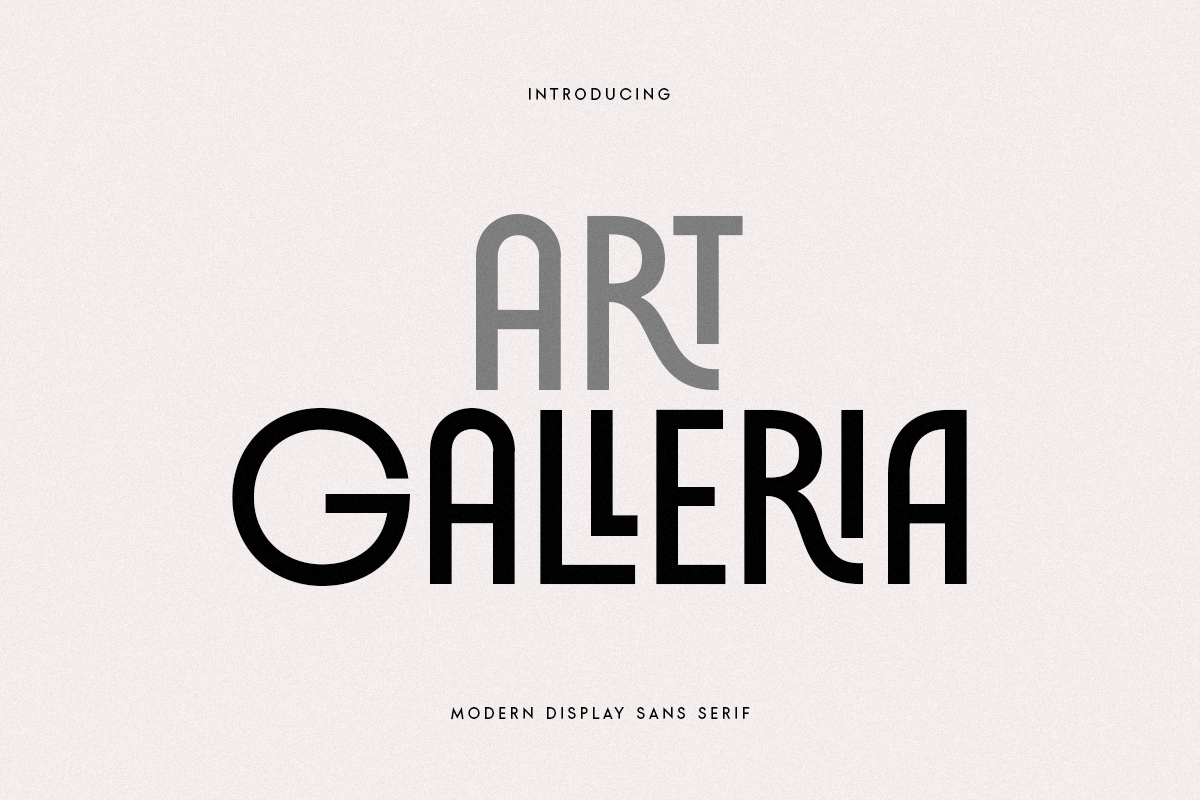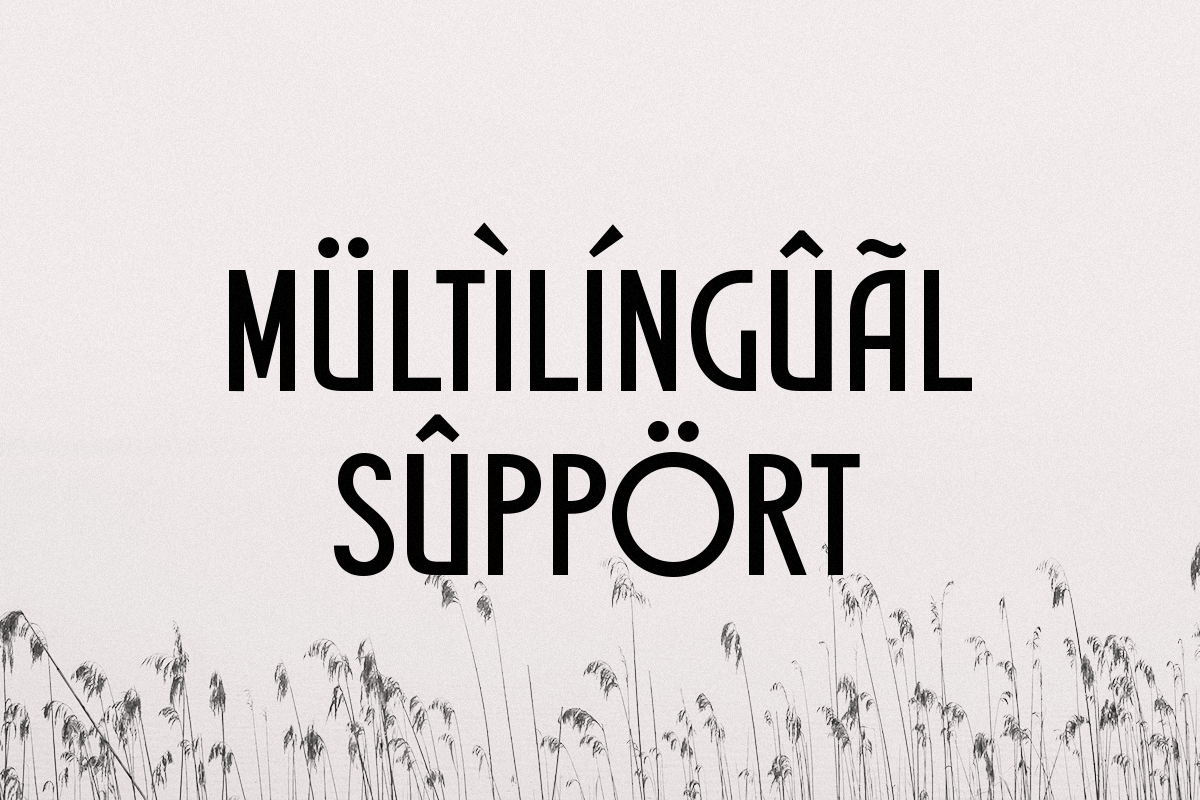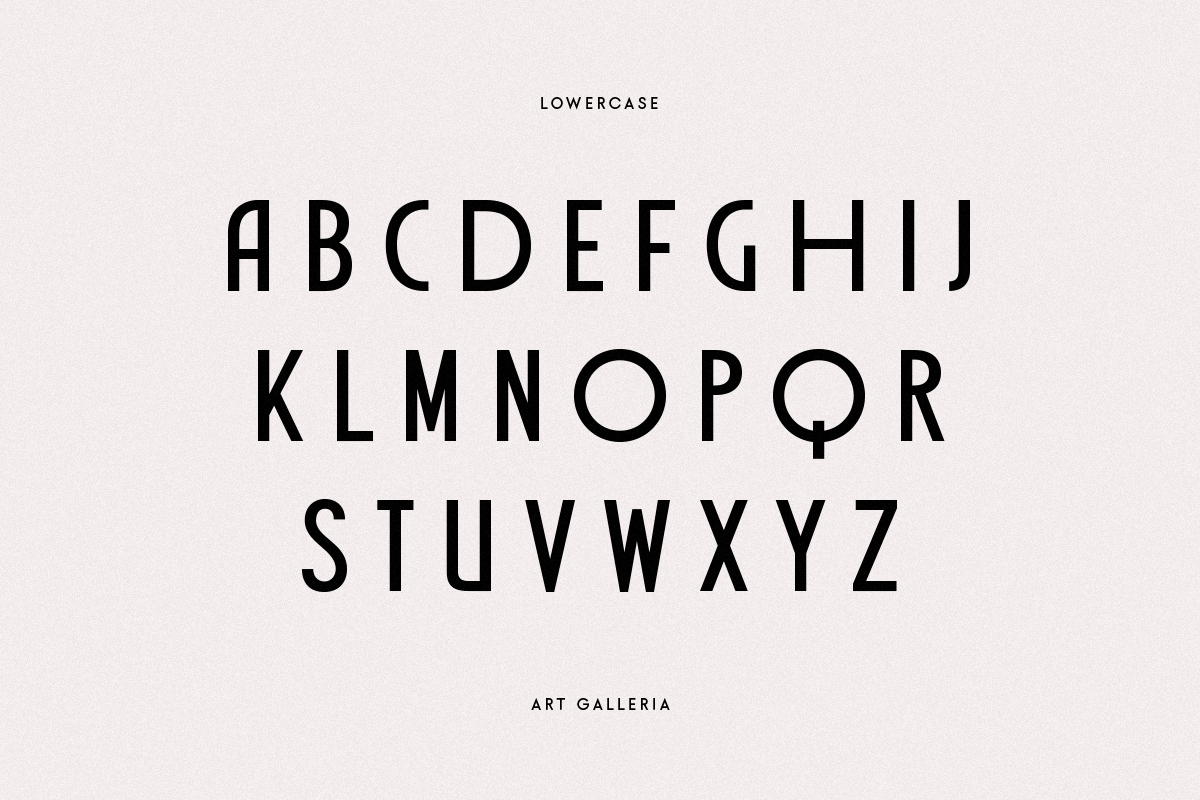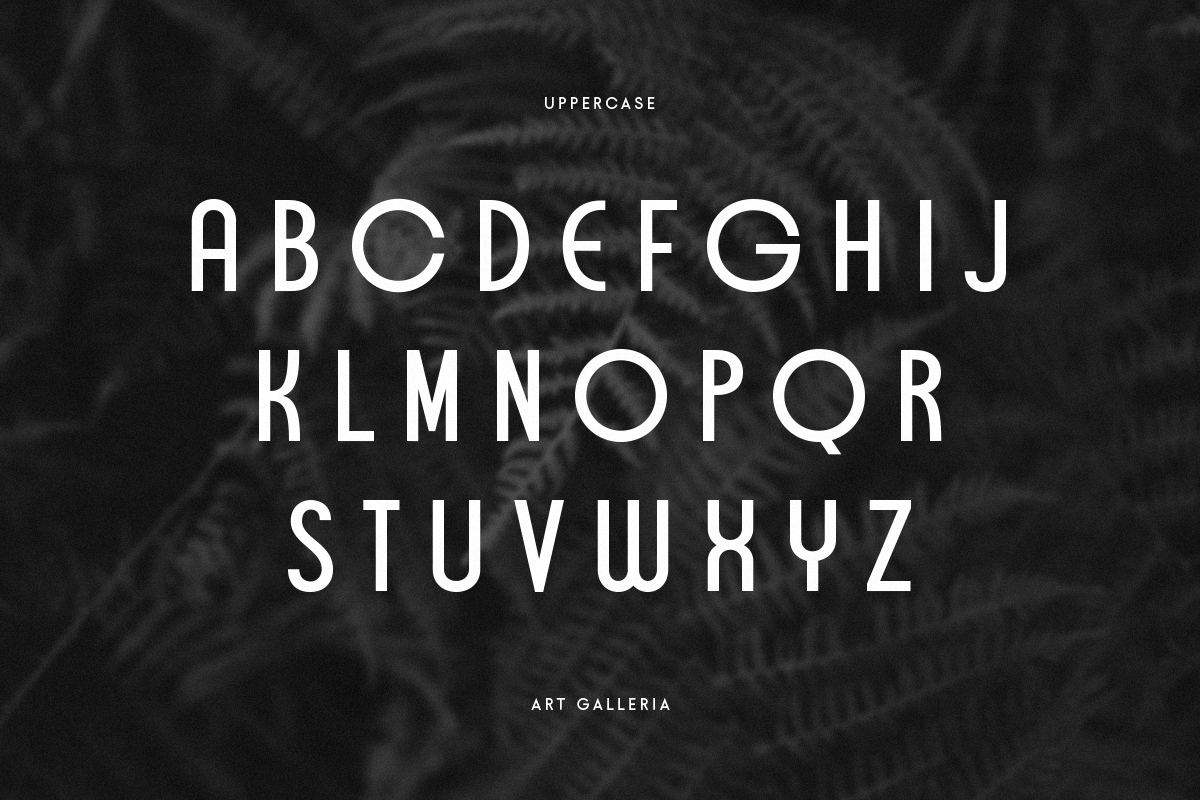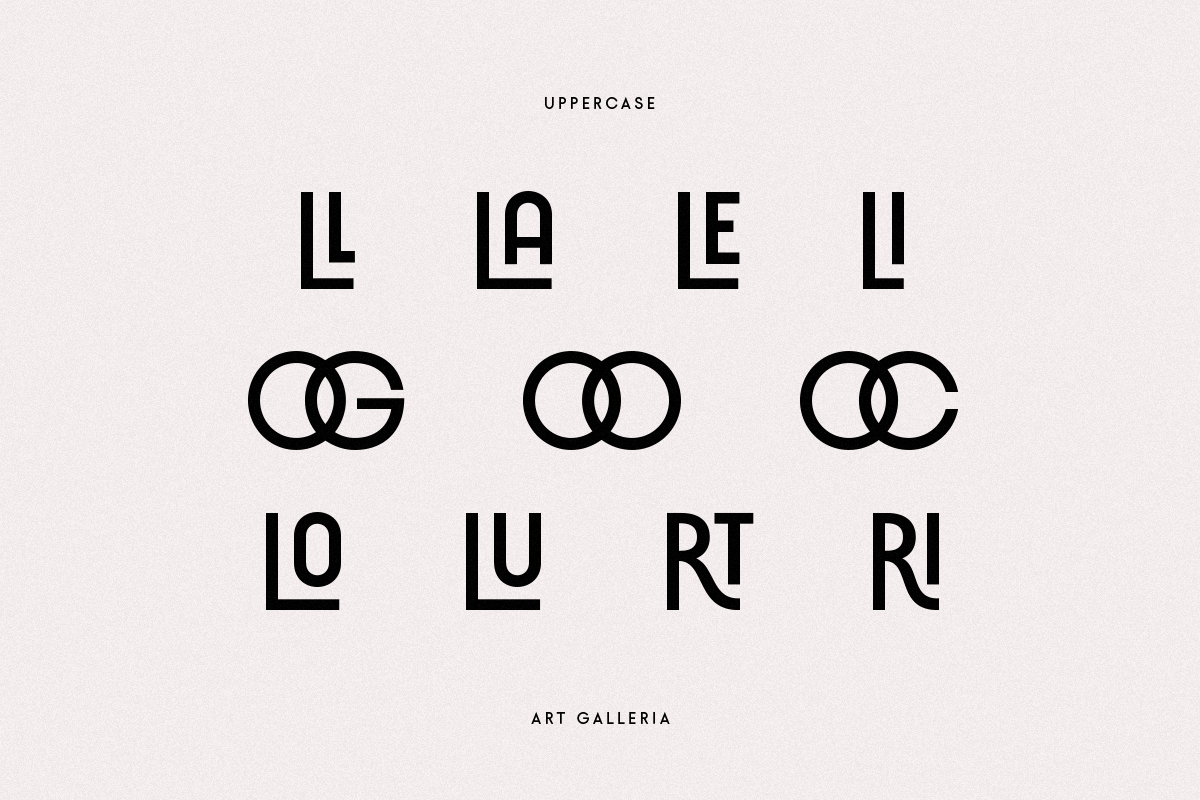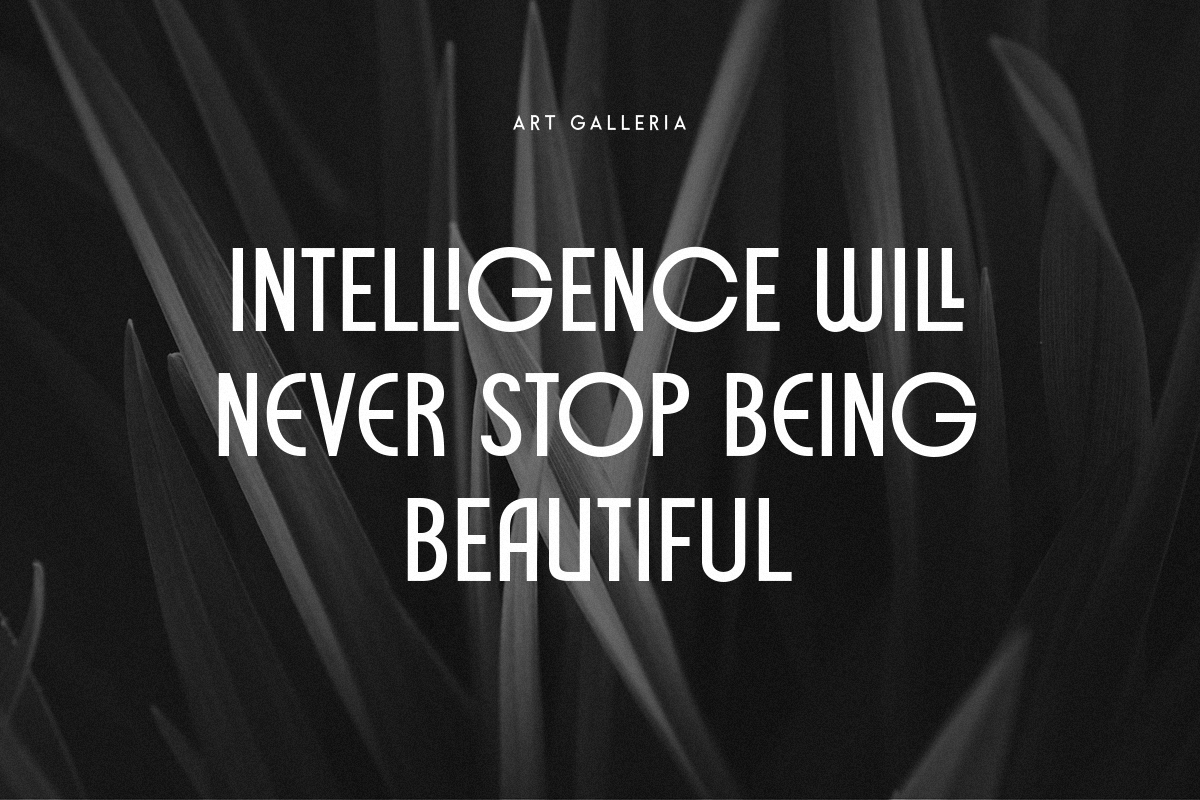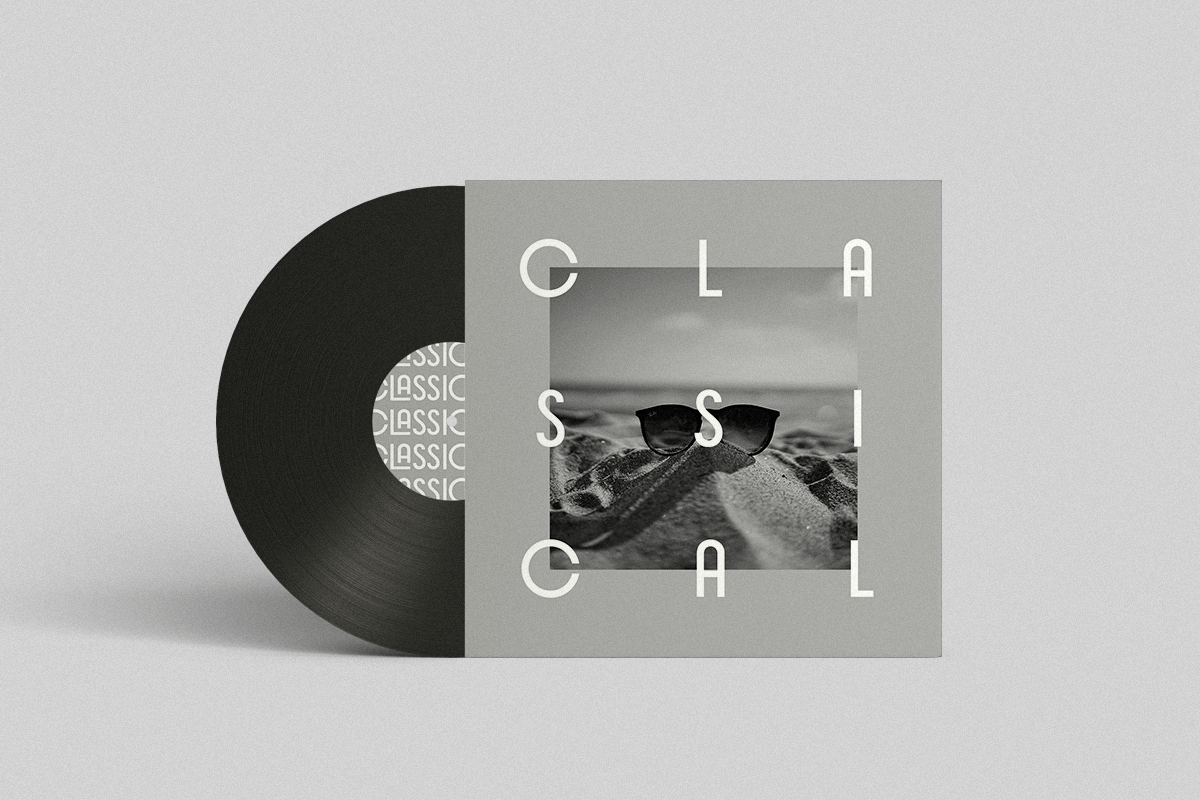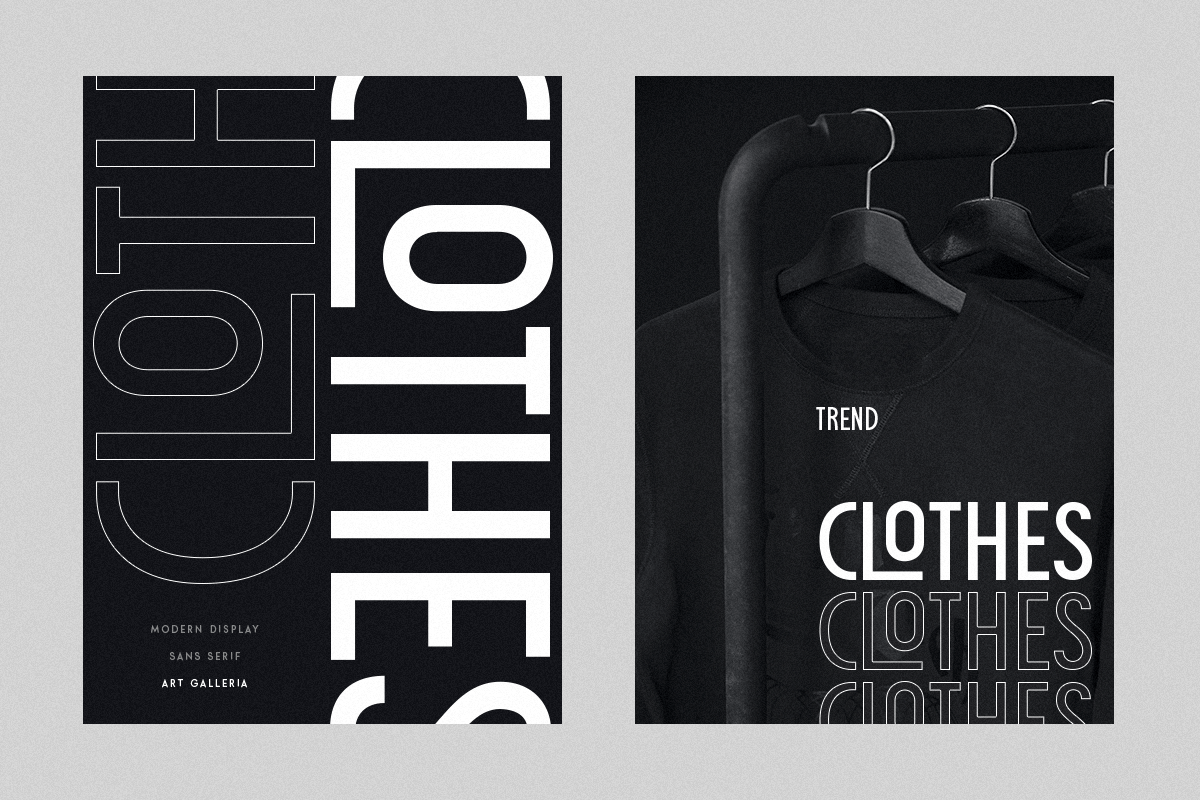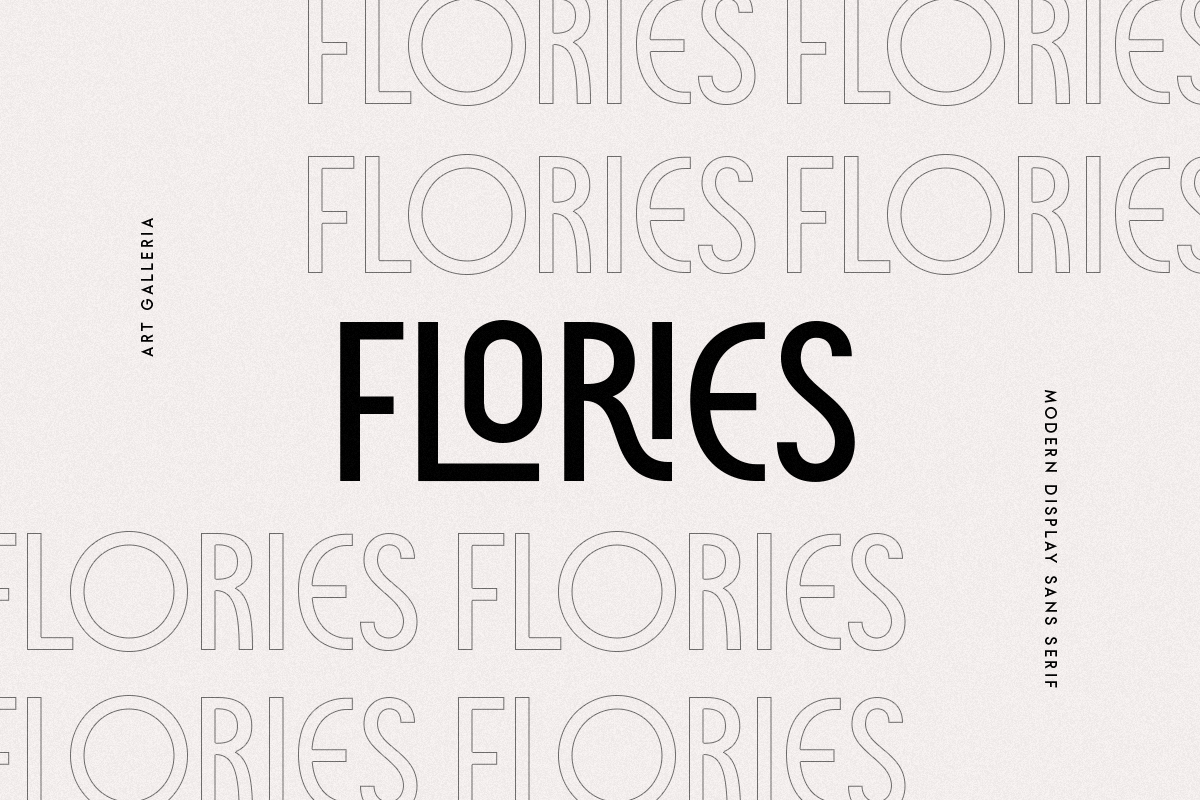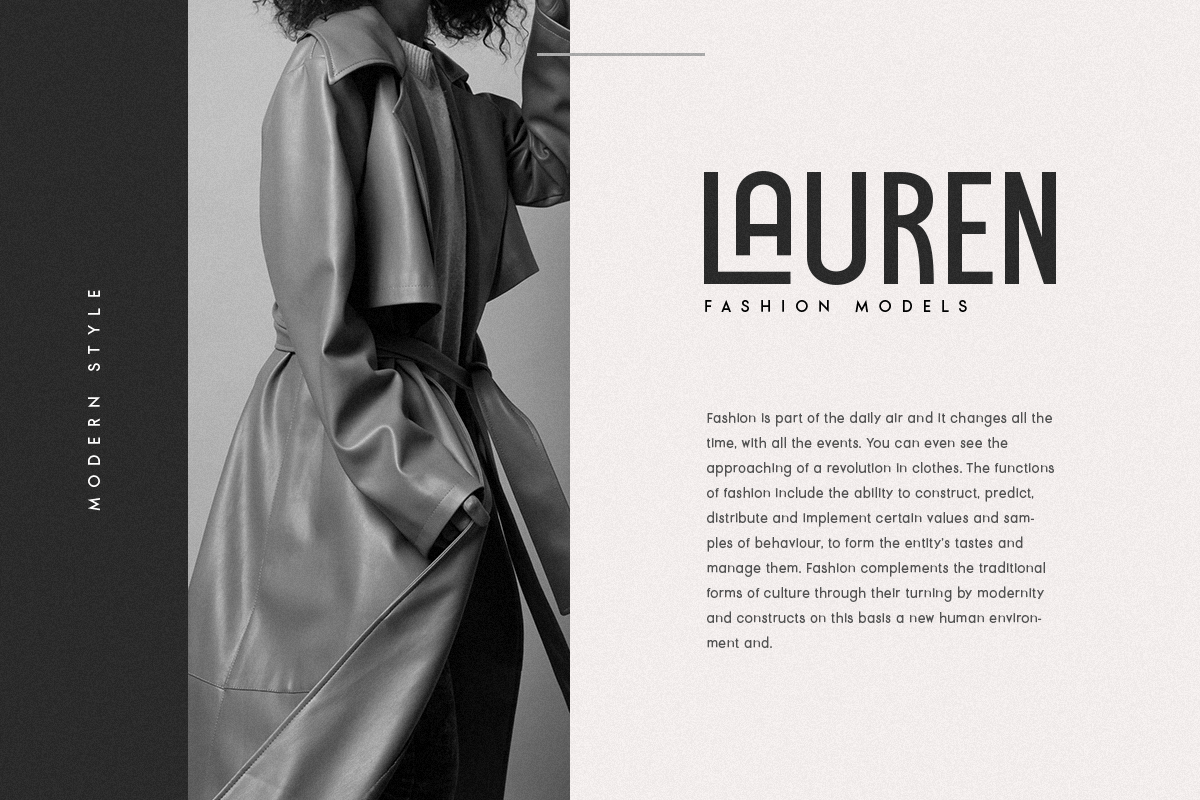
Art Galleria
-Modern Display Sans Serif
Art Galleria
Art Galleria is a Modern Display Sans Serif
A new Modern Display Sans serif that we created special for branding needs, with extra ligature in unique shape add value of your brand. It so nice to leverage designer or product owner that need solutions to make their design look more unique and modern. And specially for Art Galleria font, We prepared any ligatures, and any alternate characters to help you create unlimited variations for your creative needs.